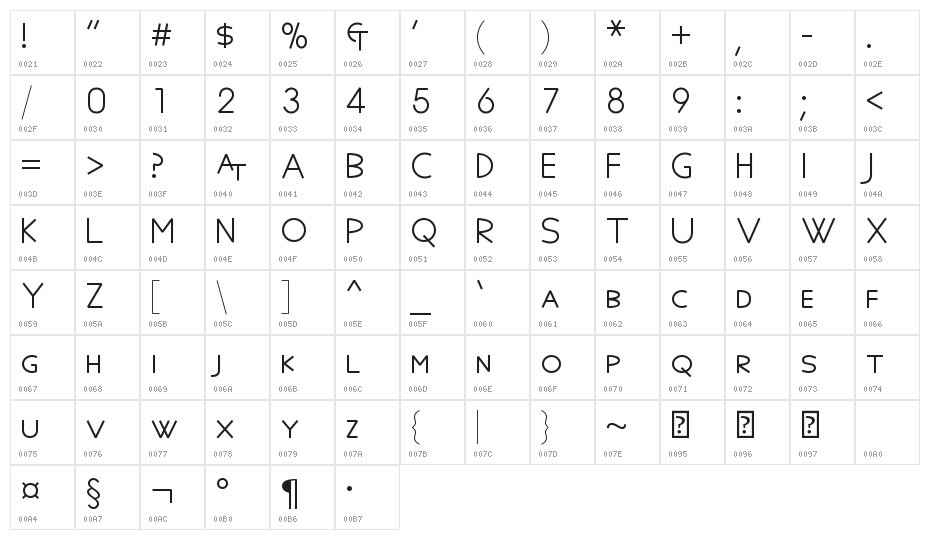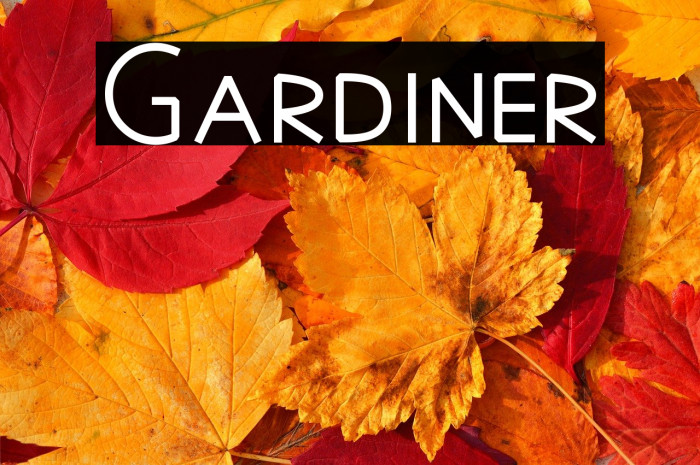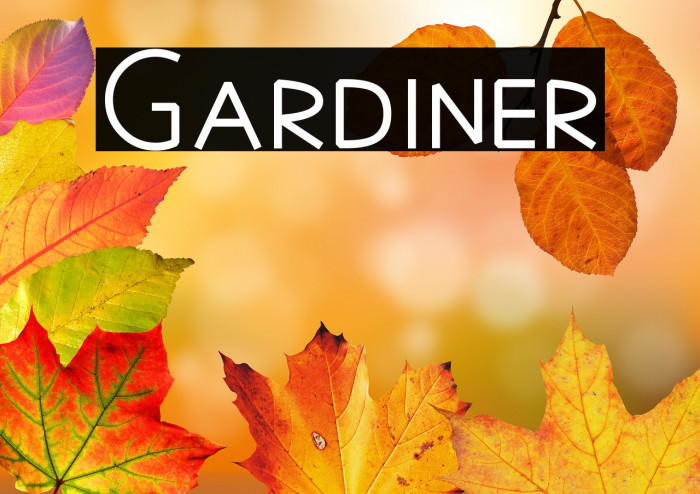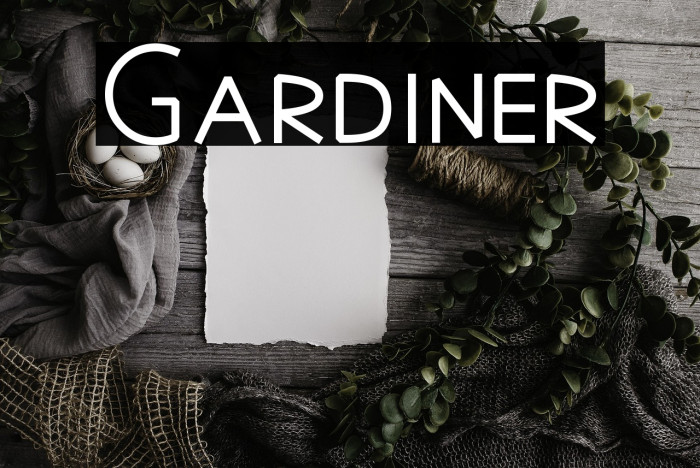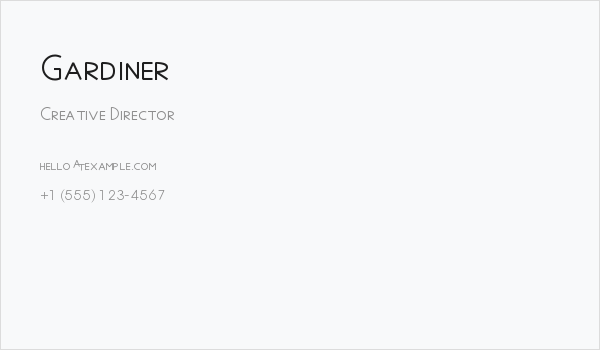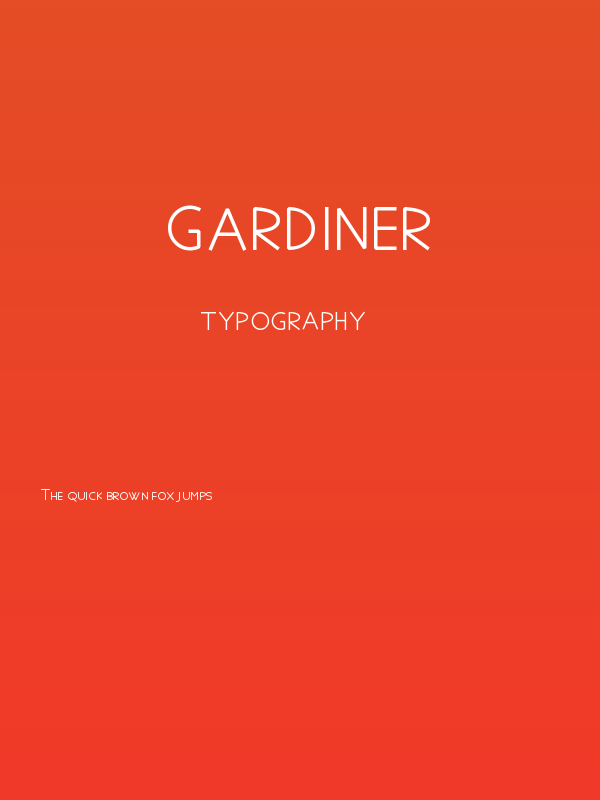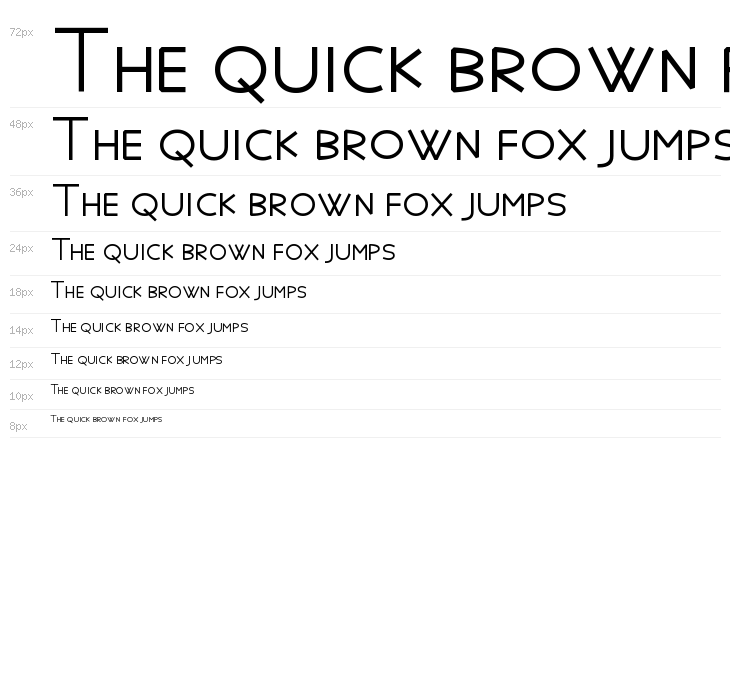
Gardiner Font
Gardiner Description
This font features a clean and modern sans-serif style, characterized by its geometric shapes and uniform stroke widths. The uppercase and lowercase letters maintain a consistent height and spacing, providing a balanced and harmonious appearance. The numerals are clear and legible, making them suitable for various applications. Special characters are well-defined, adding versatility to the font's use. The overall design is minimalistic, emphasizing clarity and readability, which makes it ideal for digital and print media.